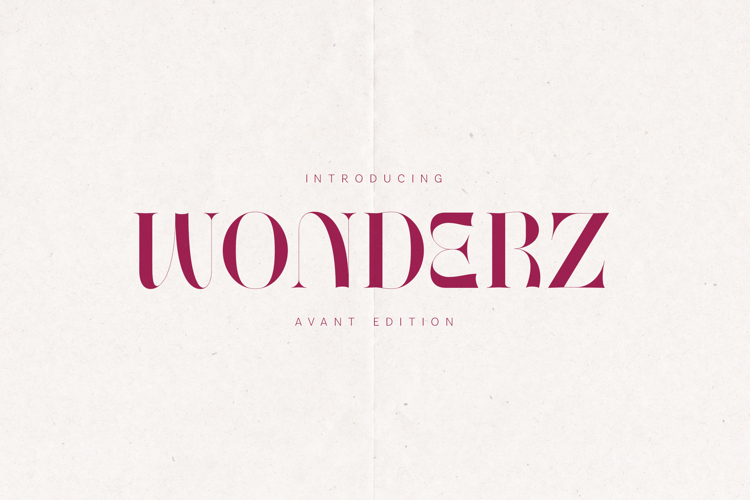
Wonderz Avant Edition Modern Artistic Serif Font
Wonderz – Avant Edition is a modern artistic serif font crafted for expressive typography and contemporary visual storytelling. With elegant curves, high contrast strokes, and avant-garde details, this font is ideal for editorial design, fashion branding, luxury packaging, posters, album covers, quotes, and creative headlines.
The Avant Edition explores a bold yet refined character, blending classic serif foundations with modern experimental flair. Its distinctive shapes and smooth rhythm create a sophisticated, eye-catching presence that elevates both print and digital designs.
Wonderz – Avant Edition includes a full character set with extensive multilingual support, numerals, punctuation, and special symbols, making it suitable for professional and creative applications alike.
Wonderz – Avant Edition is designed for creatives who seek elegance, originality, and modern expression through typography.